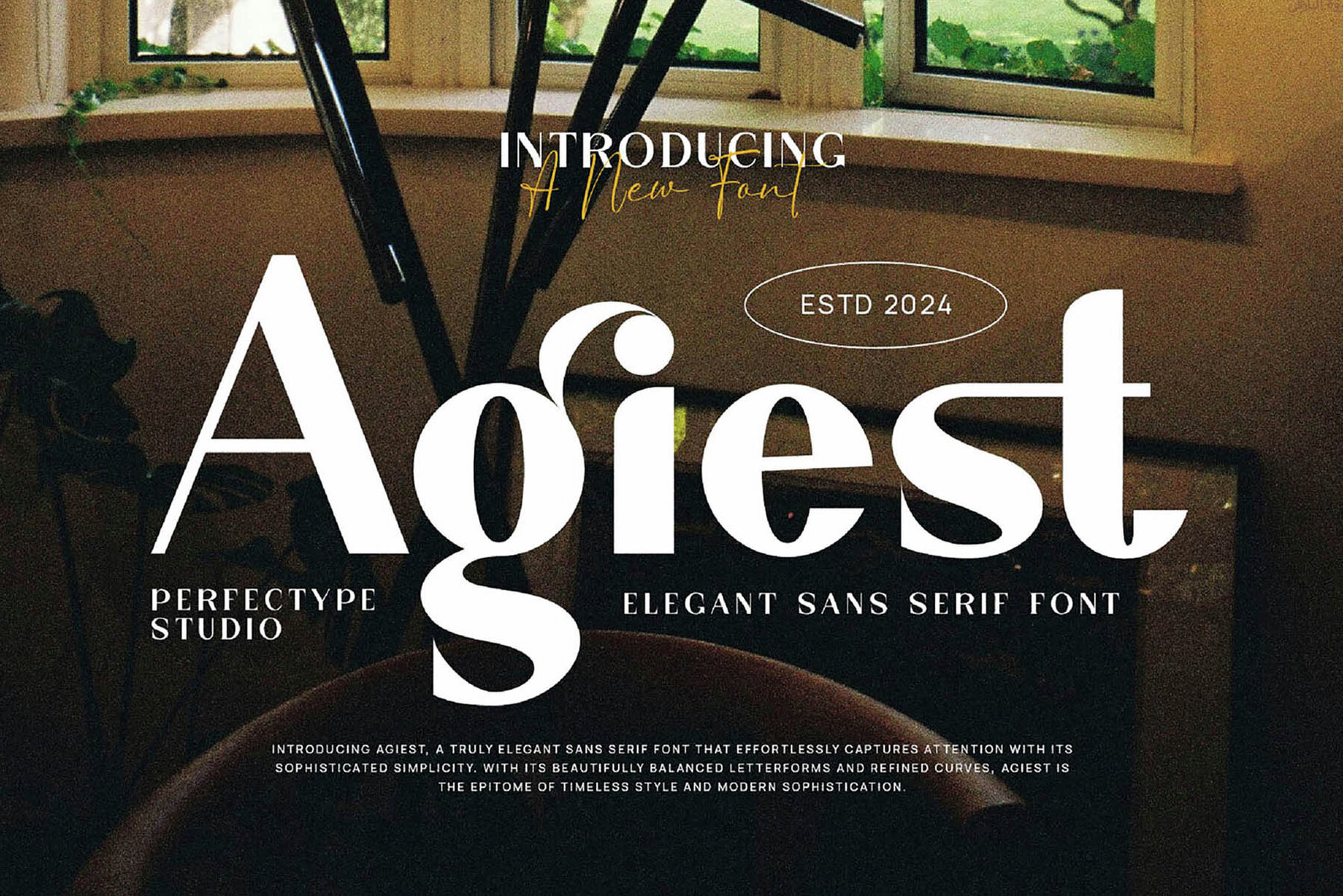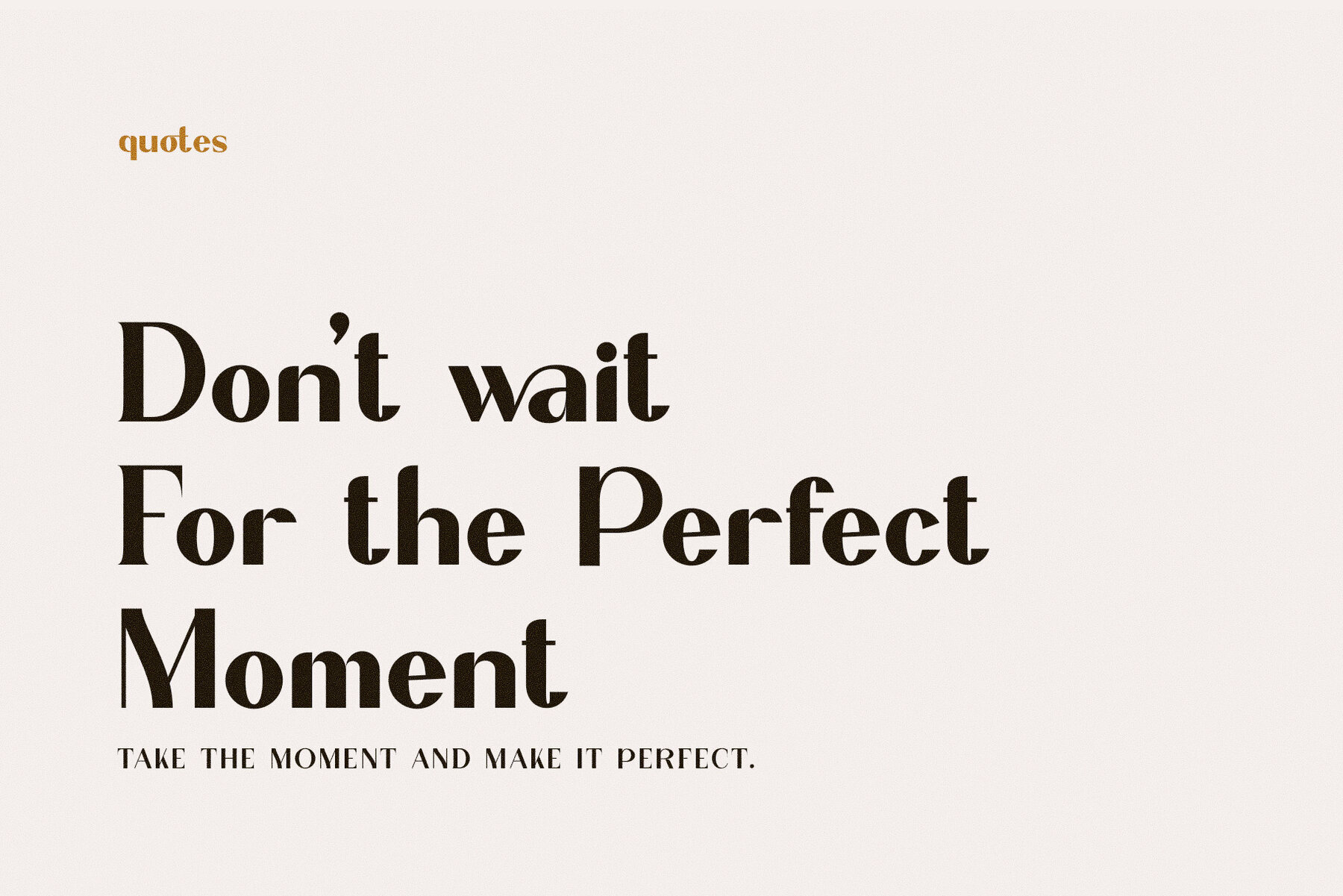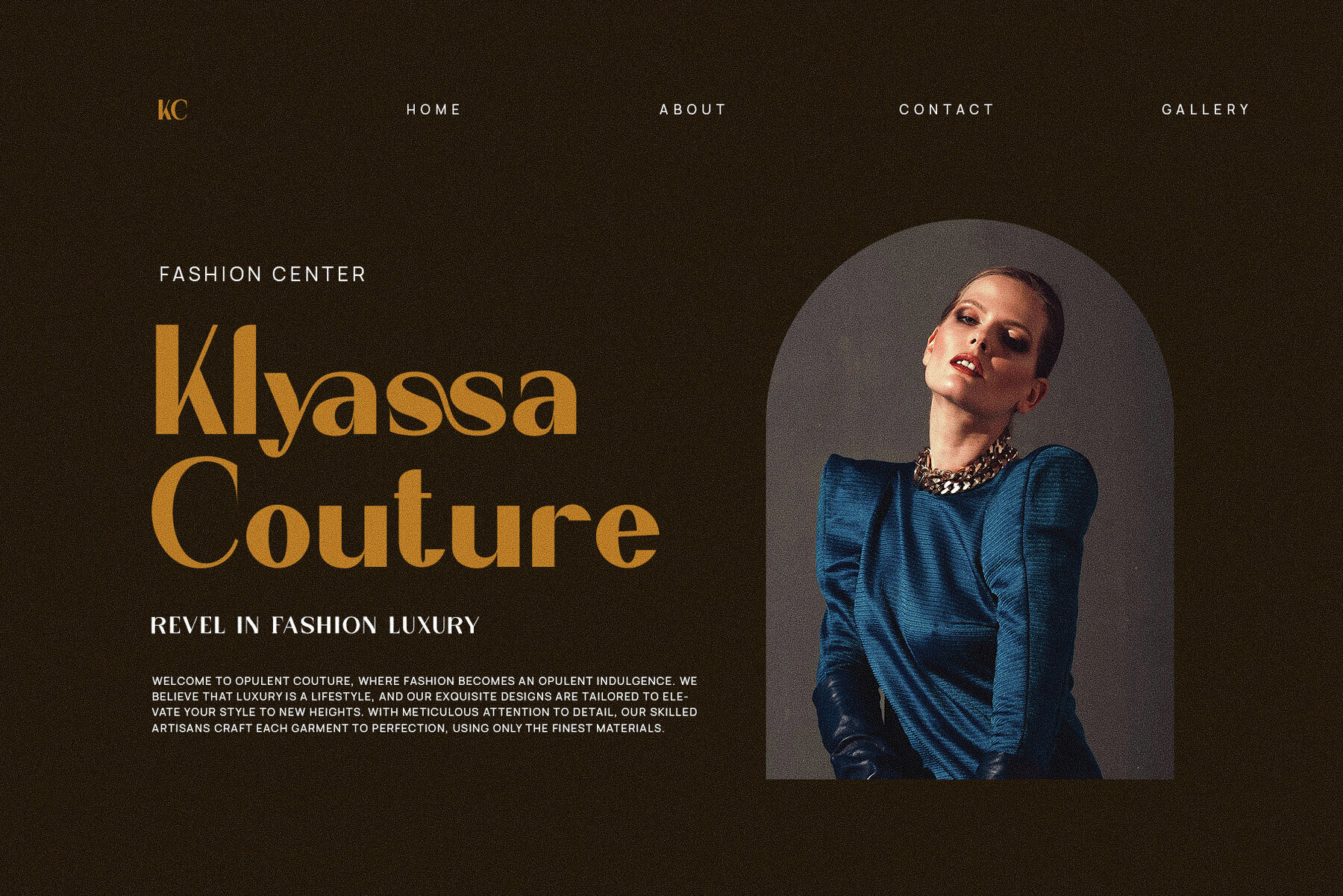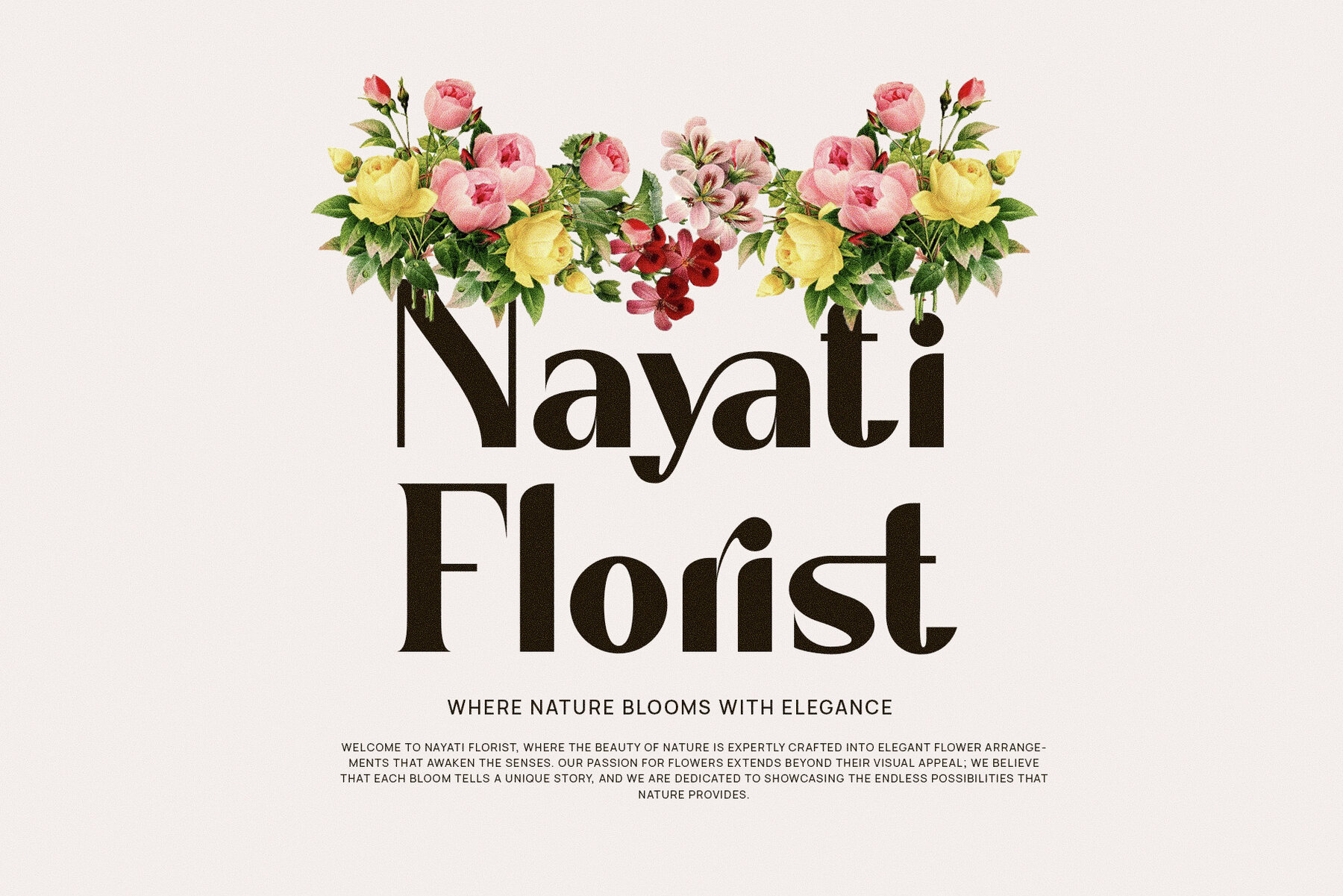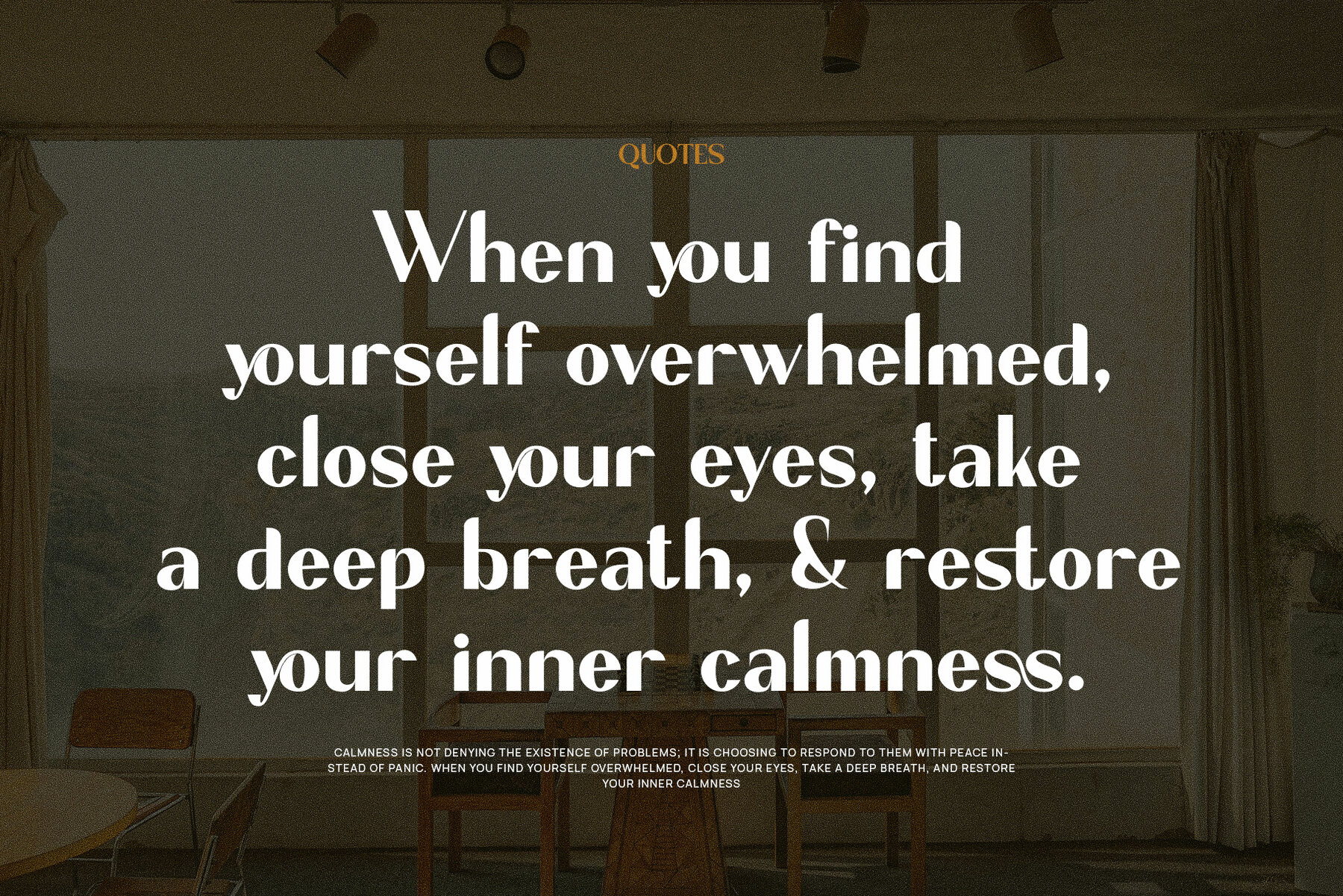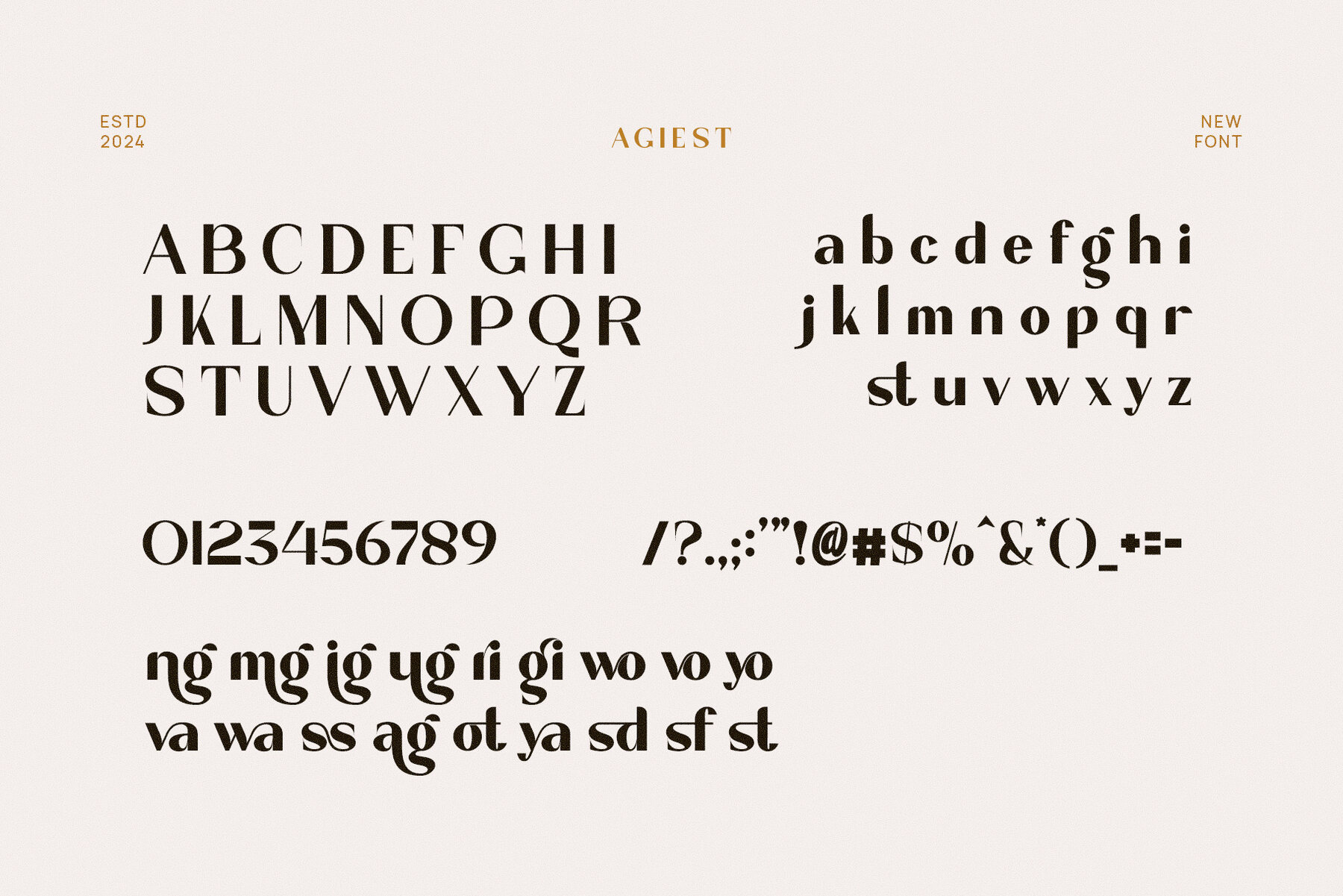
Agiest Font
Agiest
Agiest Elegant Sans Serif Font is a sophisticated yet modern typeface, offering a bold combination of thick and thin strokes to create a visually striking contrast. With its clean, geometric design, Agiest delivers a contemporary flair suitable for various creative projects. Ideal for logo design, branding, and advertising, this font enhances any business or product's visual identity. Agiest is perfect for creating a luxury brand image, whether for a boutique, food product, or high-end website, and it works seamlessly in both print and digital media, ensuring designs make a lasting impression.
The font's modern sans serif structure provides excellent readability, making it suitable for websites, social media, and other digital platforms. Its dynamic blend of bold and delicate lines gives content a distinctive look, whether used for minimalist designs or bold graphics. Agiest is a versatile asset for any design toolkit, seamlessly fitting into diverse applications while offering style and functionality. This premium font empowers creative professionals and businesses to make strong visual statements across various design projects.